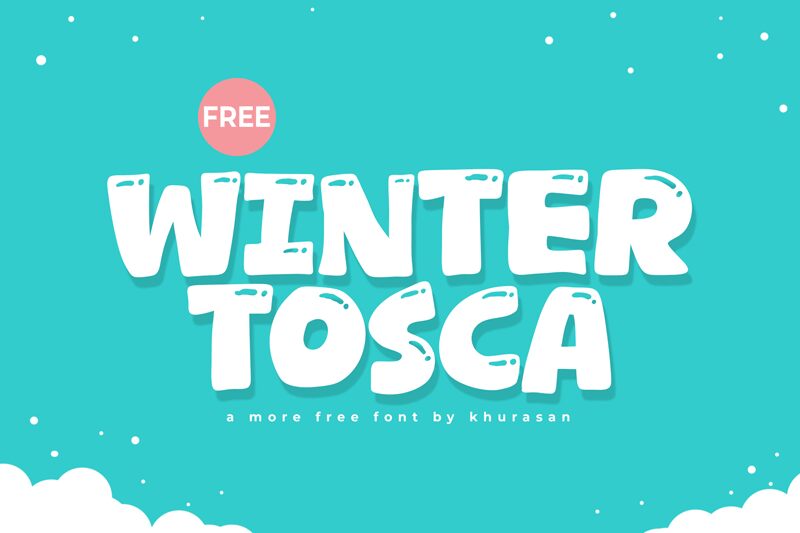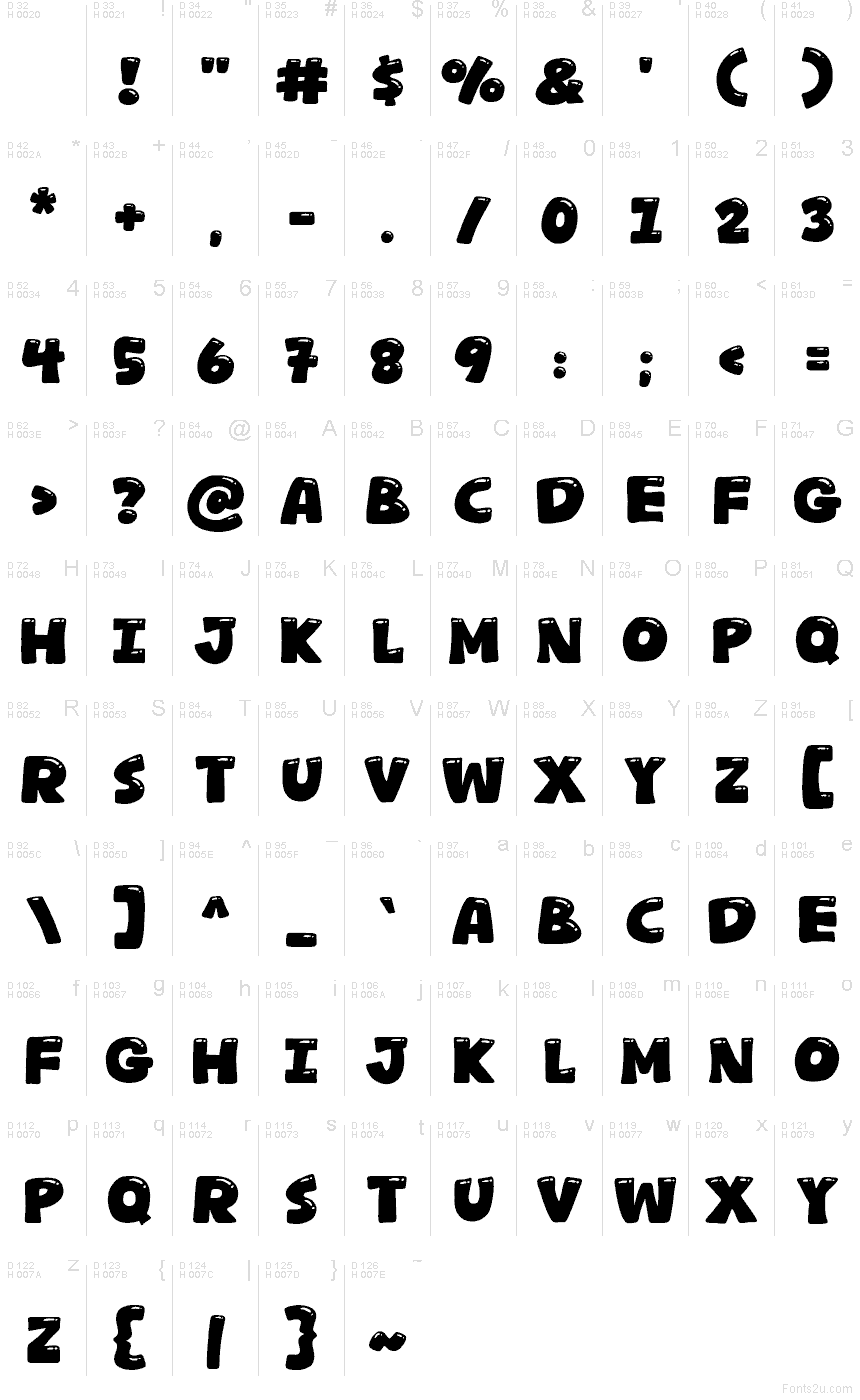
Winter Tosca font by Khurasan is a free cartoon display typeface with chunky, blobby letters that look like they’ve been piped out of thick icing or glossy slime. Each character feels soft, inflated, and slightly wobbly, giving headlines a playful weight that still reads clearly from a distance. The inky black fills and uneven edges add a hand-drawn, messy-fun energy that kids and casual audiences instantly respond to.
Using Winter Tosca, you can bring bold personality to children’s book covers, slime-themed party invites, winter festival posters, craft packaging, game titles, YouTube thumbnails, and playful social graphics. This free font shines when set large and loud, with plenty of spacing so those bulbous shapes have room to breathe. For supporting text, pair it with a simple rounded sans serif to keep the look friendly but readable.